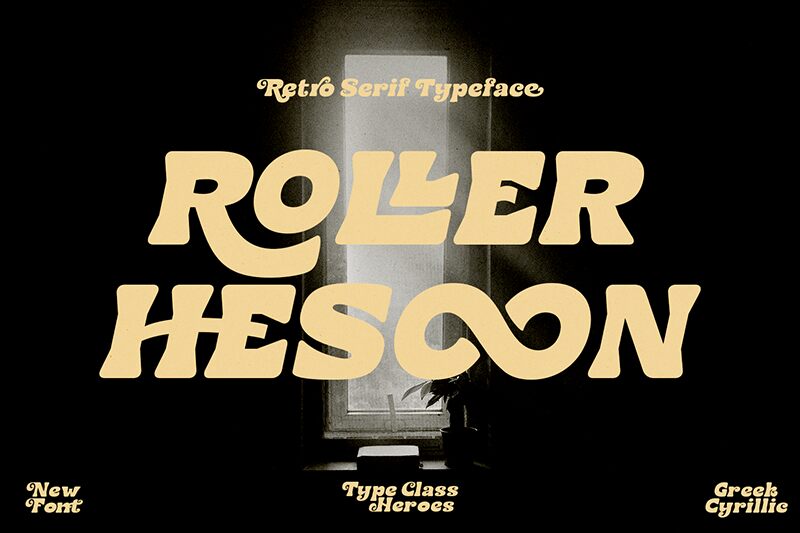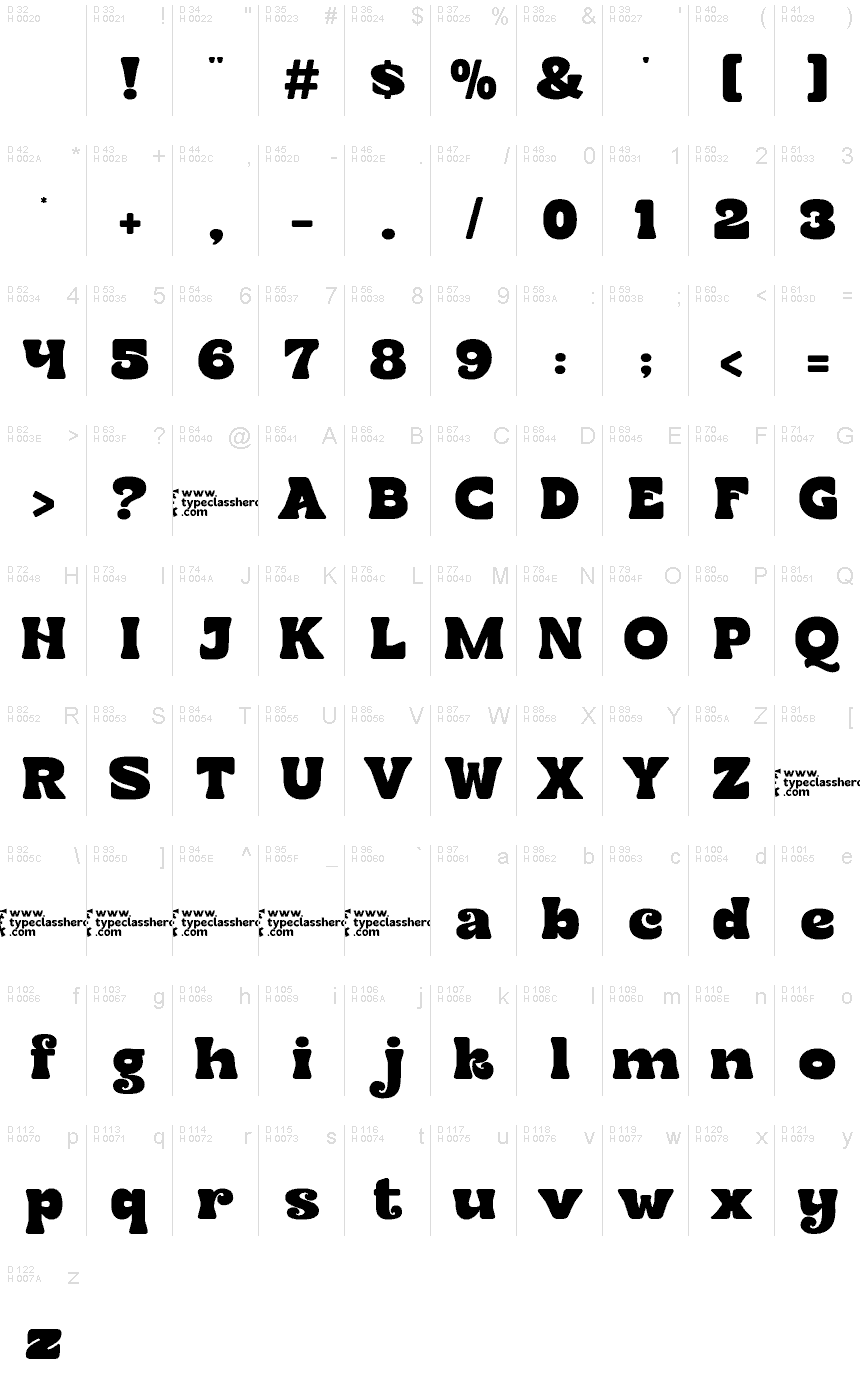
Roller Hesoon Demo
Roller Hesoon font from TypeClassHeroes is a retro display typeface with bold weight and expanded width. Perfectly round at the edges, it creates a whimsical modernist appearance that powerfully grabs attention but doesn’t overpower other elements within well-thought designs. This free font has been crafted in uppercase only.
Use this delightful playful typeface in conjunction with your book covers, posters, magazines, branding projects, CD covers, merchandise designs (T-shirts), movie titles and so much more!